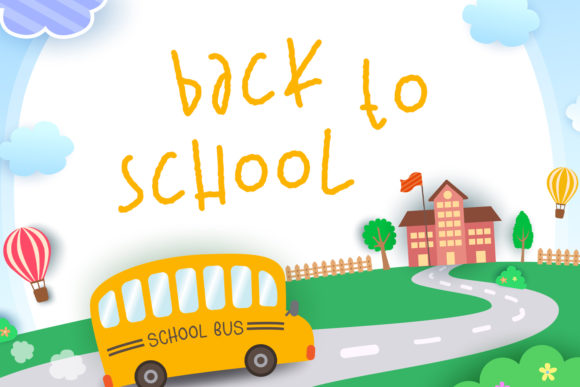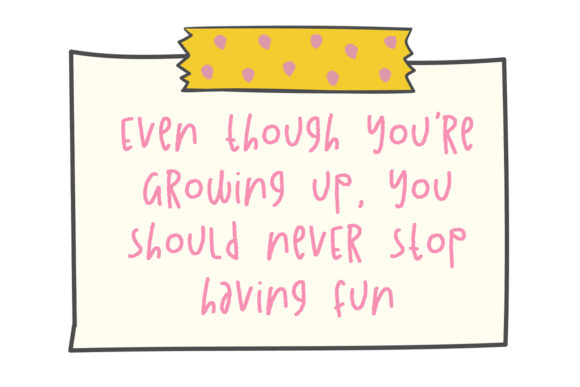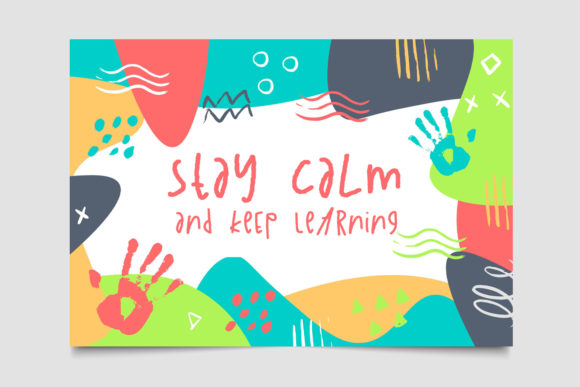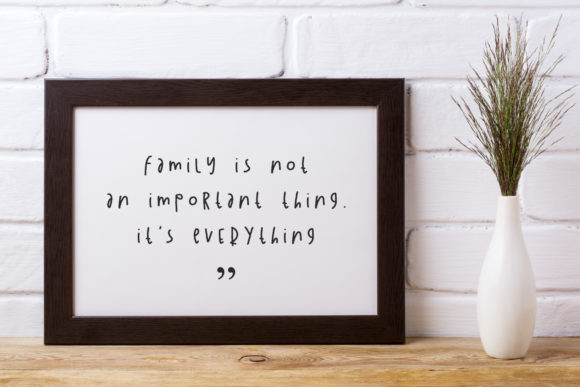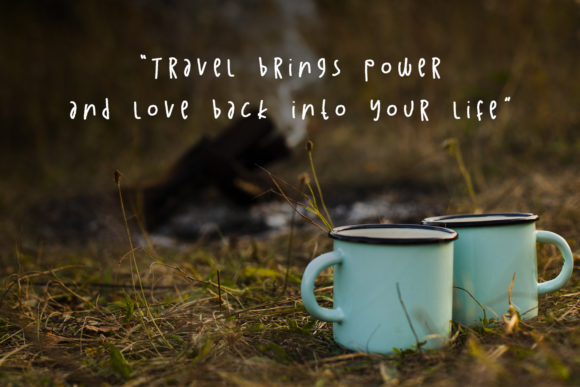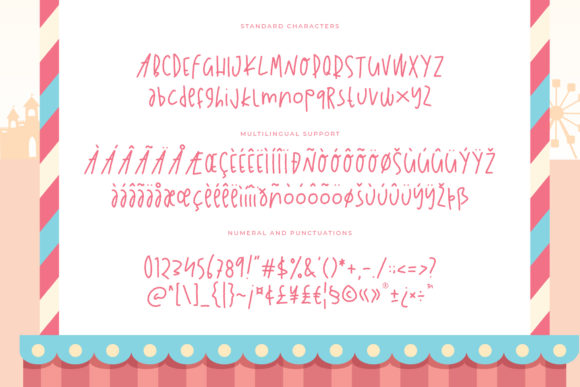
Introducing Farmhouse Children Font: The Perfect Addition to Your Design Toolbox
Are you a designer, crafter, or DIY enthusiast looking for a font that can add a touch of whimsy and charm to your projects? Look no further than Farmhouse Children Font, a delightful handwritten font that’s sure to capture your heart. With its incredibly versatile style, this font is perfect for creating spectacular designs that stand out from the crowd.
What is Farmhouse Children Font?
Farmhouse Children Font is a cute and quirky handwritten font that’s designed to bring a sense of playfulness and innocence to your designs. Its unique and charming style is reminiscent of children’s handwriting, making it perfect for projects that require a personal and friendly touch.
Key Features of Farmhouse Children Font
- Handwritten style: Farmhouse Children Font is a handwritten font that features a unique and quirky style that’s perfect for adding a personal touch to your designs.
- Versatile: This font is incredibly versatile and can be used for a wide range of projects, from crafting and DIY to digital design and marketing.
- Cute and charming: The font’s cute and charming style is sure to capture your heart and add a touch of whimsy to your designs.
- Easily readable: Despite its playful style, Farmhouse Children Font is easily readable, making it perfect for use in body text and other applications where legibility is important.
Uses for Farmhouse Children Font
Farmhouse Children Font is a versatile font that can be used for a wide range of projects, including:
- Crafting and DIY projects: Use Farmhouse Children Font to add a personal touch to your crafting and DIY projects, such as signs, cards, and gift tags.
- Digital design: This font is perfect for use in digital design, including social media graphics, blog posts, and website headers.
- Marketing materials: Use Farmhouse Children Font to add a touch of whimsy and charm to your marketing materials, such as brochures, flyers, and business cards.
- Stationery and invitations: This font is perfect for use in stationery and invitations, including wedding invitations, birthday cards, and baby shower announcements.
Tips for Using Farmhouse Children Font
Here are a few tips for using Farmhouse Children Font in your designs:
- Pair with other fonts: Farmhouse Children Font pairs well with other fonts, including serif and sans-serif fonts. Experiment with different pairings to find the perfect combination for your design.
- Use in combination with images: This font looks great in combination with images, particularly those with a rustic or vintage feel.
- Experiment with colors: Farmhouse Children Font looks great in a variety of colors, including bright and bold hues as well as more muted and pastel shades.
Farmhouse Children Font is a delightful handwritten font that’s sure to capture your heart. With its incredibly versatile style and cute and charming aesthetic, this font is perfect for designers, crafters, and DIY enthusiasts looking to add a touch of whimsy and charm to their projects. Whether you’re creating digital designs, crafting and DIY projects, or marketing materials, Farmhouse Children Font is the perfect addition to your design toolbox.